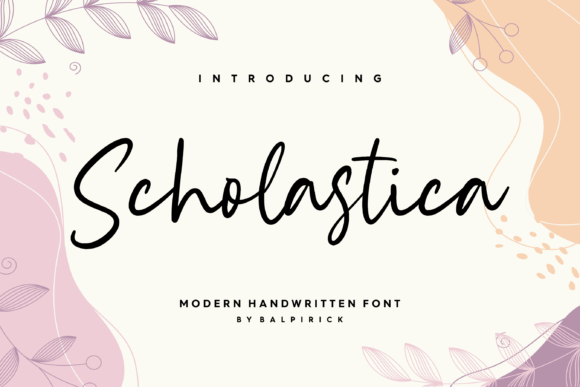
Behold, Scholastica Font - the epitome of grace and elegance, crafted with meticulous care by the esteemed Balpirick. This exquisite script font draws inspiration from classic calligraphy, yet exudes a refreshing contemporary charm, making it the perfect choice for fashion-forward brands seeking to captivate their audience.
Step into a world of timeless beauty as you embrace Scholastica. Experience the allure of its graceful curves, the delicate flow of its strokes, and the undeniable allure that radiates from every letterform. Whether you're designing elegant invitations, crafting sophisticated logos, or adding a touch of refinement to your marketing materials, Scholastica rises to the occasion, elevating your creations with an air of sophistication that is sure to leave a lasting impression.
Immerse yourself in the versatility of Scholastica. Its inherent charm shines through in a myriad of applications, from letterheads and titles to stationery and more. With Scholastica as your ally, your creative potential knows no bounds, allowing you to craft designs that resonate with your audience, leaving them enthralled and eager for more.
Scholastica Font is more than just a font; it's an invitation to step into a world of refined elegance and timeless beauty. Let your imagination soar as you unleash the limitless possibilities that await you. Embrace the allure of Scholastica today and elevate your designs to new heights of sophistication.